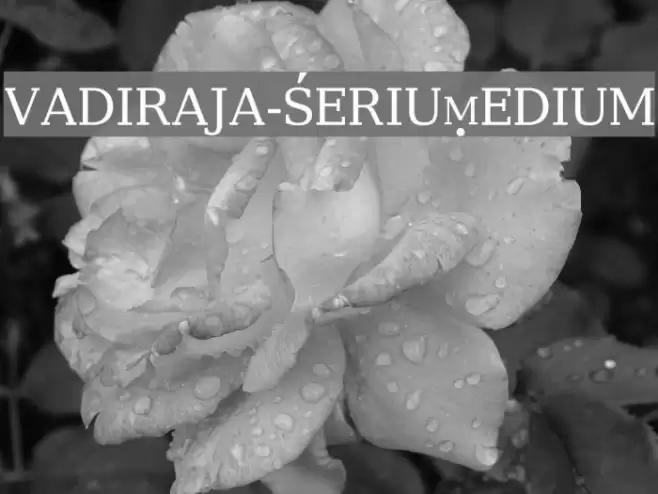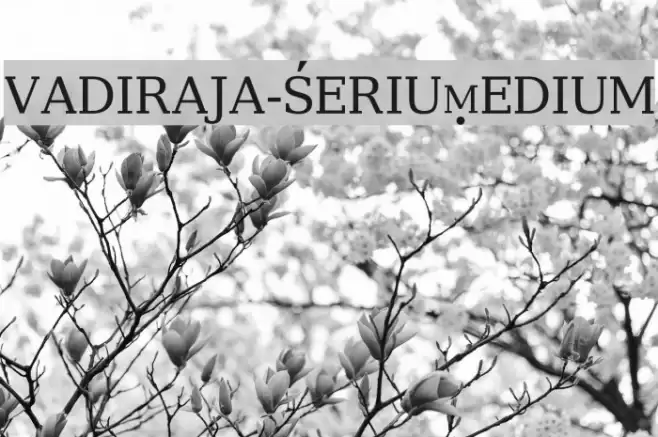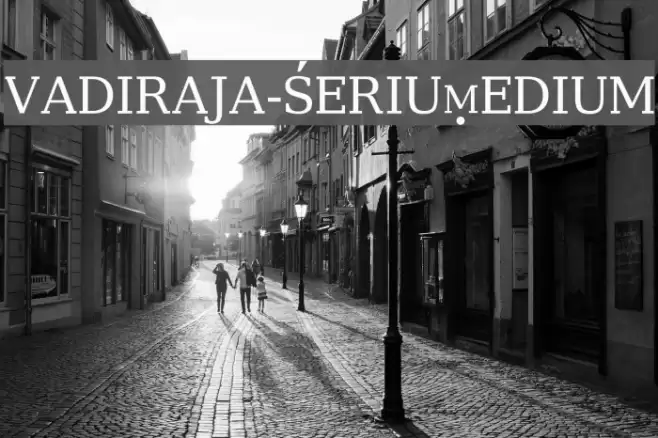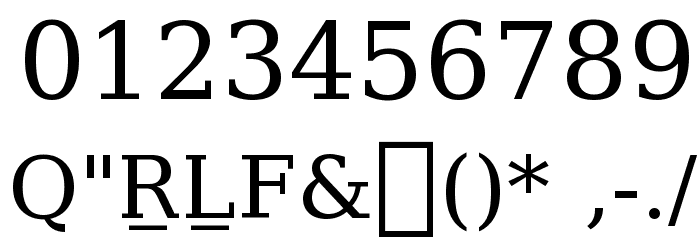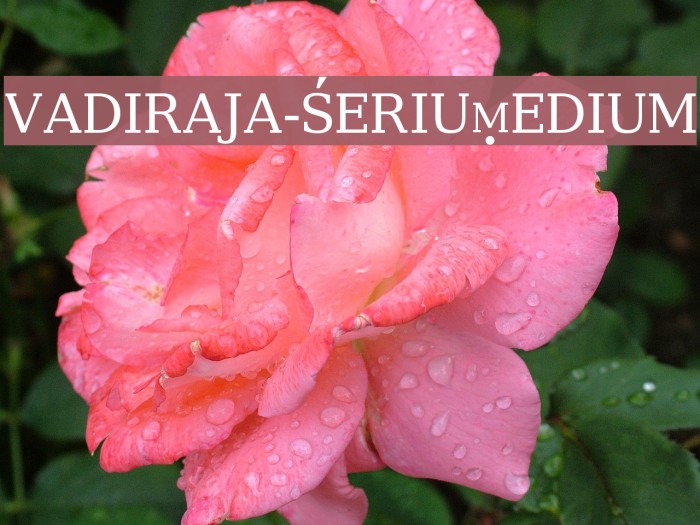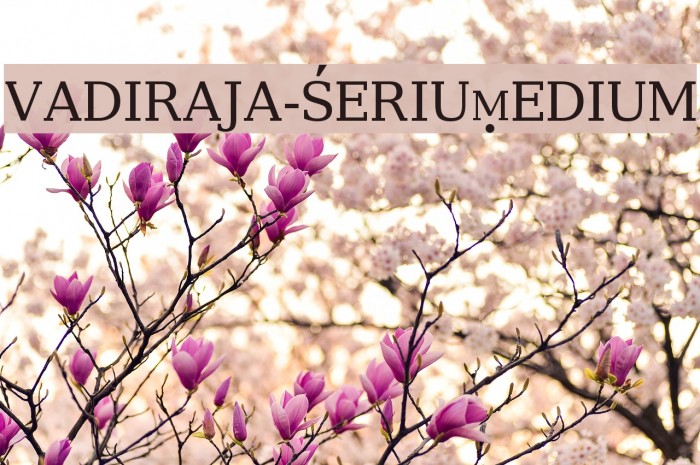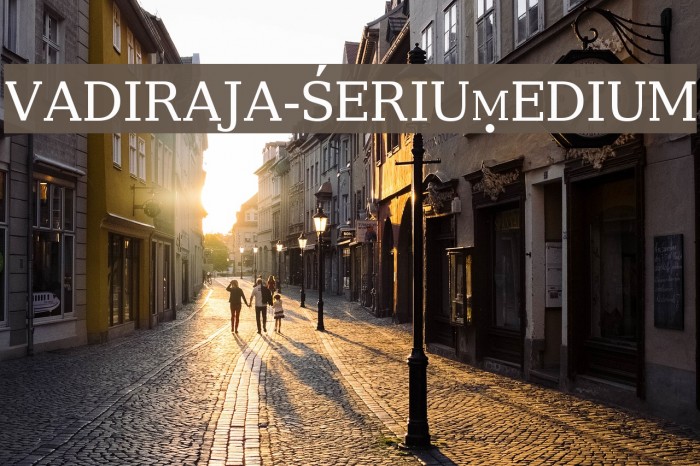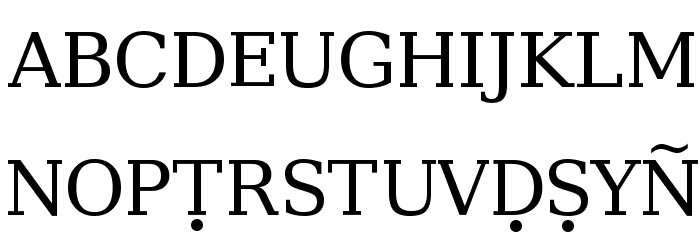
vadiraja-SerifMedium Font
vadiraja-SerifMedium Description
This font features a classic serif style with a medium weight, offering a balanced and readable appearance. The characters are well-defined with a moderate contrast between thick and thin strokes, providing a traditional yet elegant look. The uppercase letters are bold and prominent, while the lowercase letters maintain a consistent style. The numerals are clear and distinct, making them suitable for various applications. Special characters are included, enhancing the font's versatility. The overall design is refined, making it ideal for formal and professional use.
A classic serif font with medium weight and moderate contrast, ideal for formal use from Uncategorized fonts.
- Proposed Projects: Suitable for book publishing, academic papers, formal invitations, and corporate branding.
- Overall Style: Classic